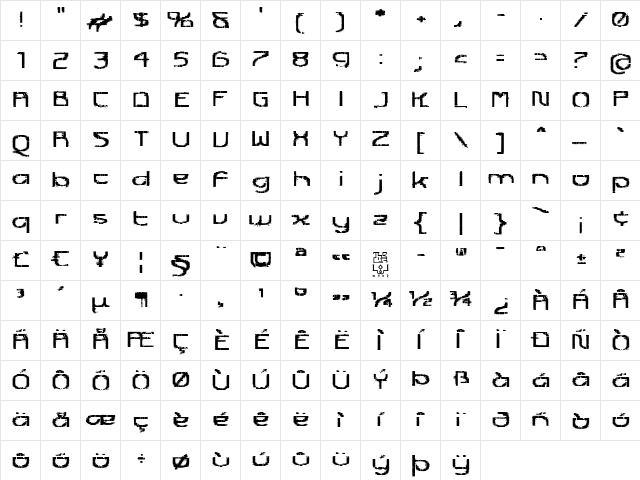
Futurex Transmaat Regular
| Designer | Monk, Graham Meade & Apostrophe |
Design Context for Futurex Transmaat Typeface
Futurex Transmaat has a distinctly futuristic character, with geometric precision and clean angles that feel at home in technology, gaming, and sci-fi contexts.